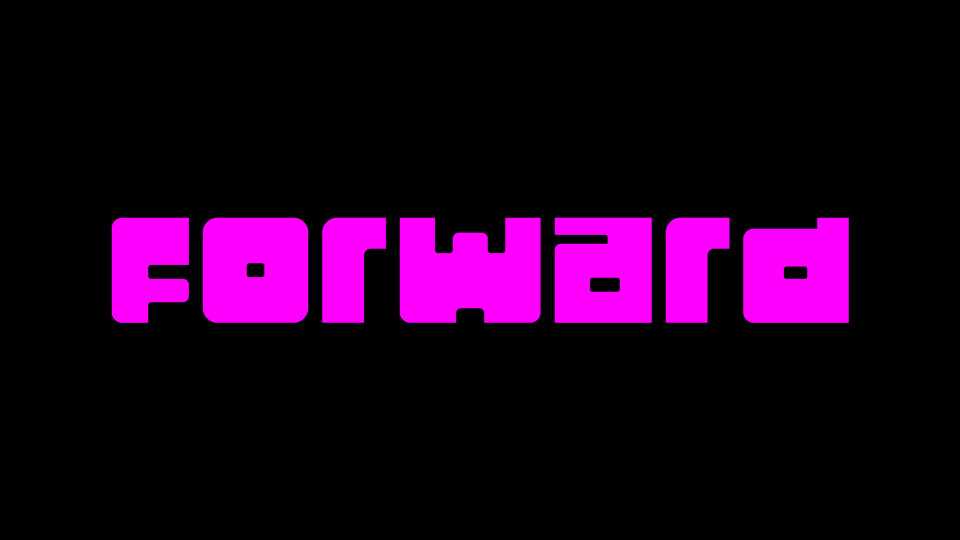
Download Forward font, a block display typeface with bold personality. Forward font is ideal for loud messages, eye-catching posters and headlines.
Designer: Frank Adebiaye